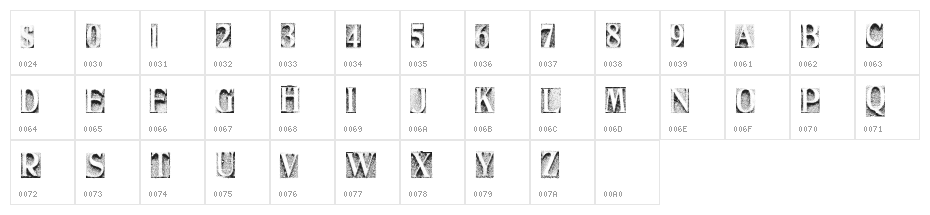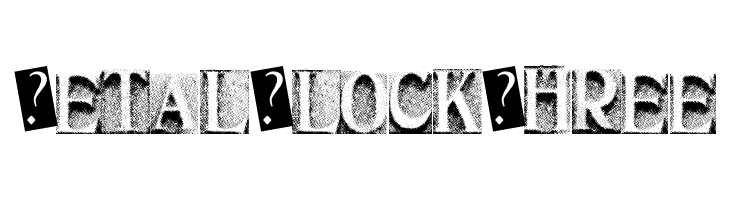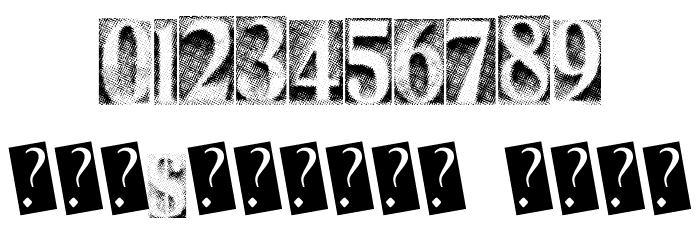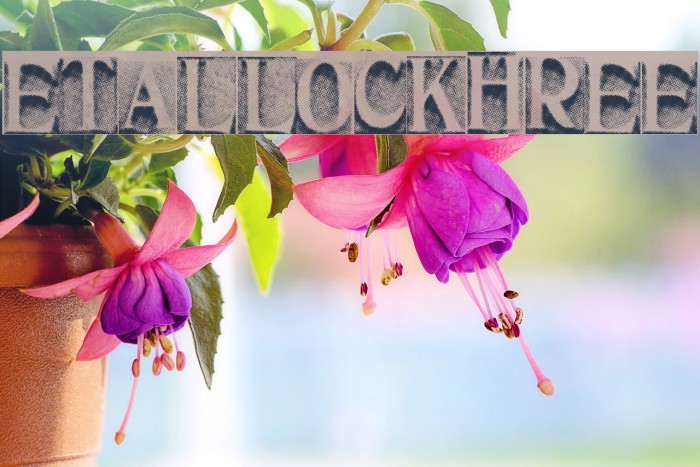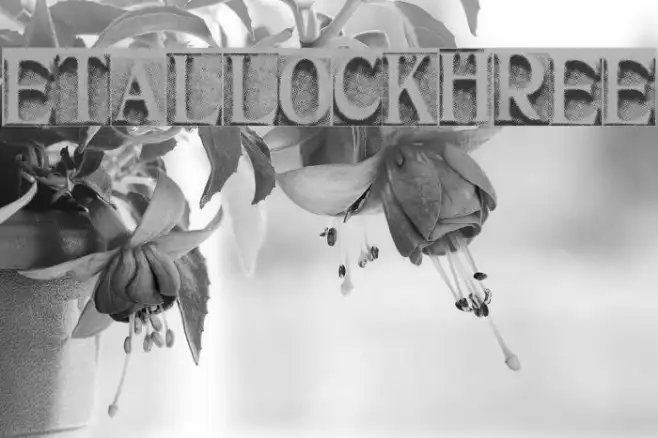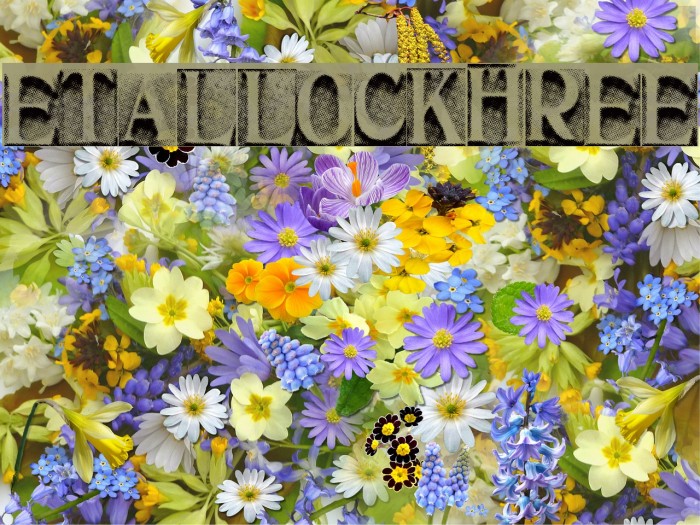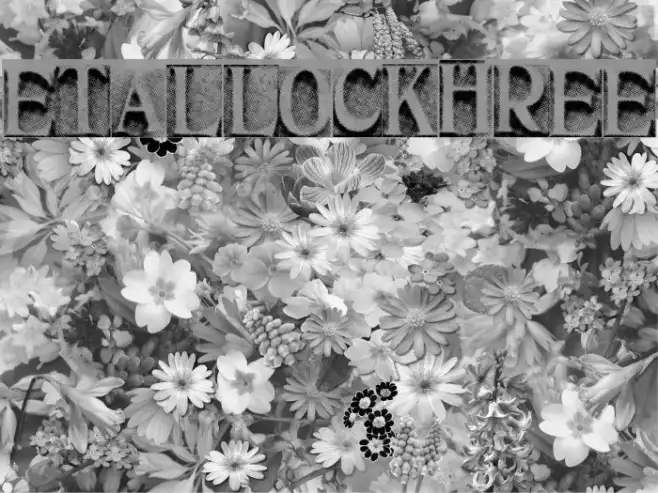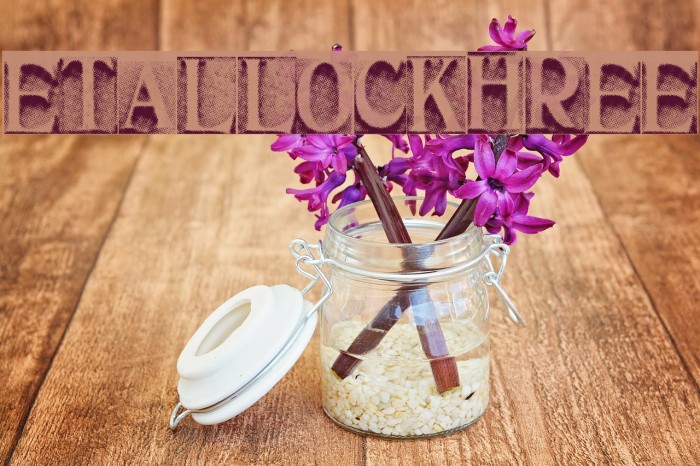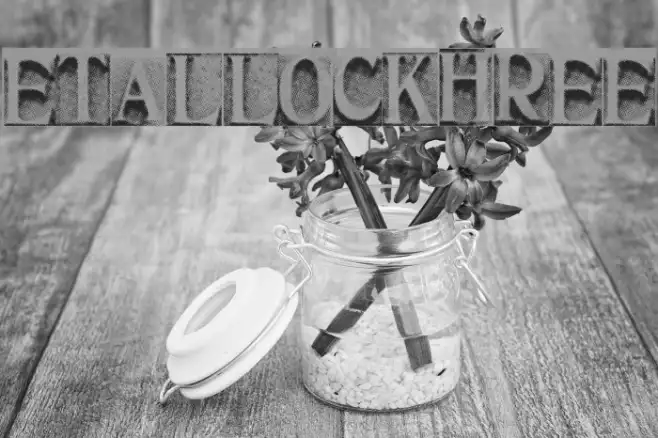
MetalBlockThree Font
MetalBlockThree Description
This font features a bold and industrial aesthetic, characterized by its strong, block-like letterforms. Each character is crafted with a metallic texture, giving it a rugged and robust appearance. The uppercase letters are prominent and assertive, while the numerals maintain a consistent style that complements the alphabet. The font's design is reminiscent of industrial signage or machinery labels, with a distinct emphasis on durability and strength. The absence of lowercase letters suggests a focus on impactful, uppercase communication. The special characters, though limited, align with the overall theme, enhancing the font's utility in various contexts.
| Overall Style | Industrial, Rugged |
| Use Case | Headlines, Logos, Signage |
| Proposed Projects | Ideal for industrial-themed branding, signage, posters, and any project requiring a strong, mechanical aesthetic. |